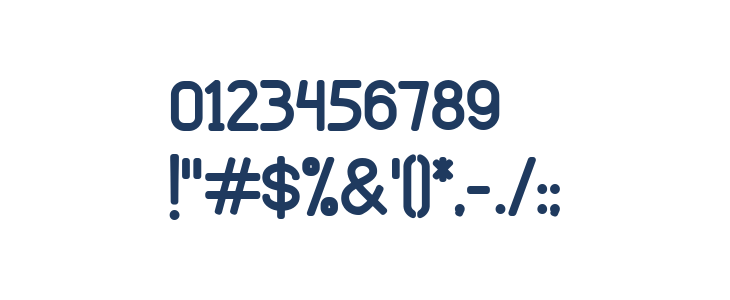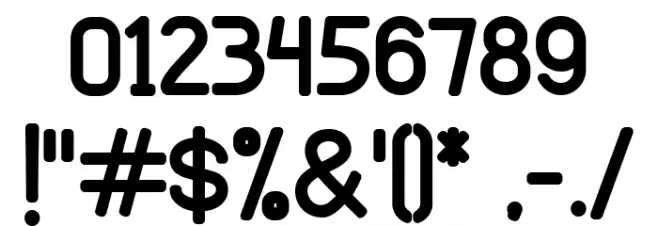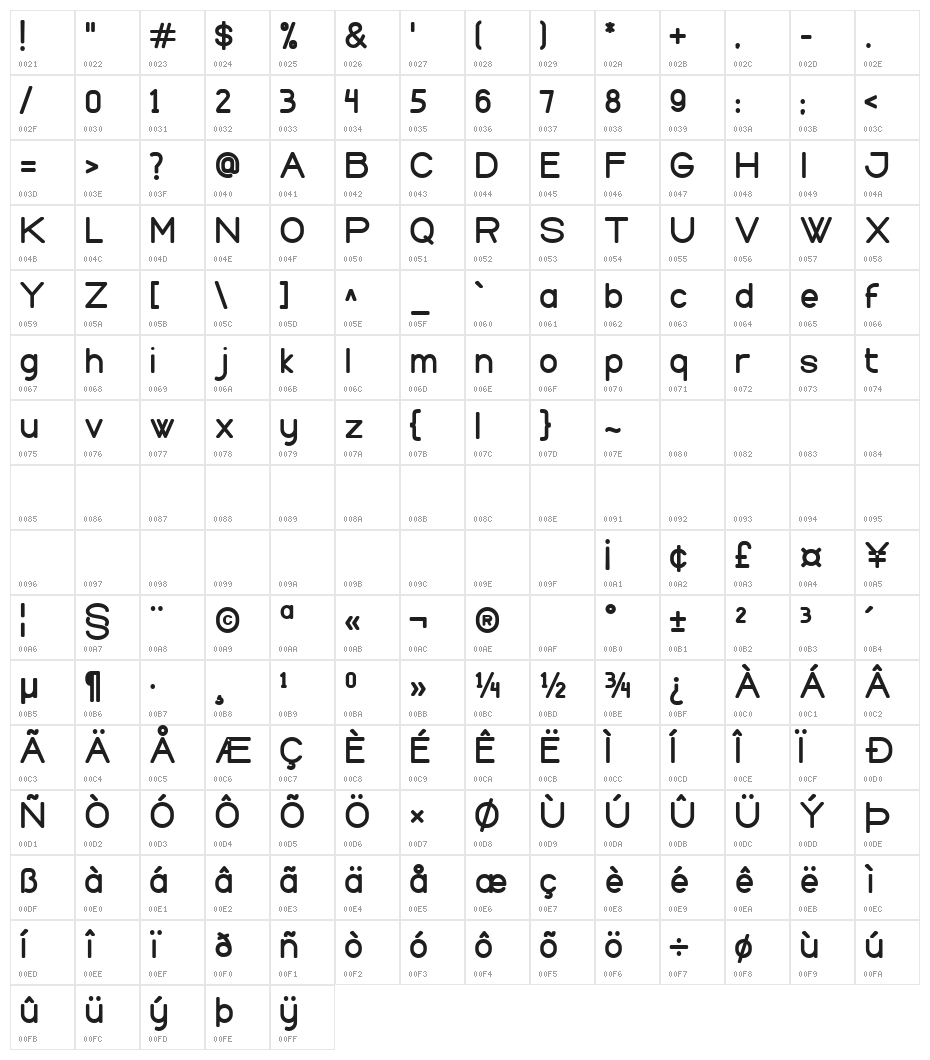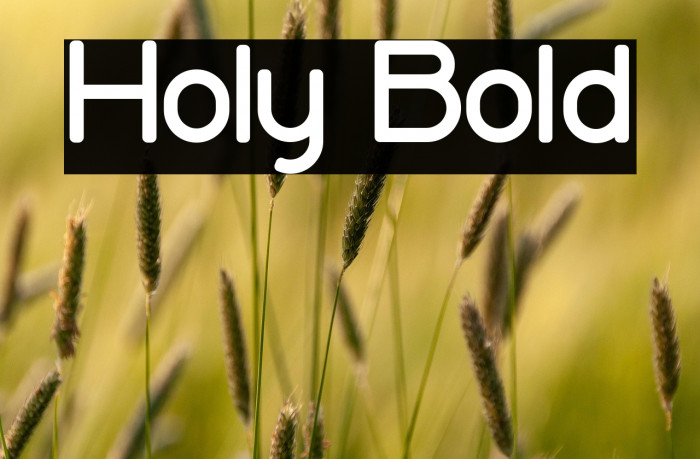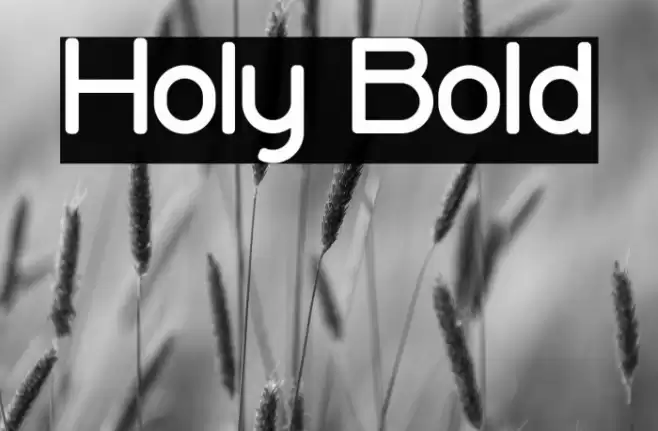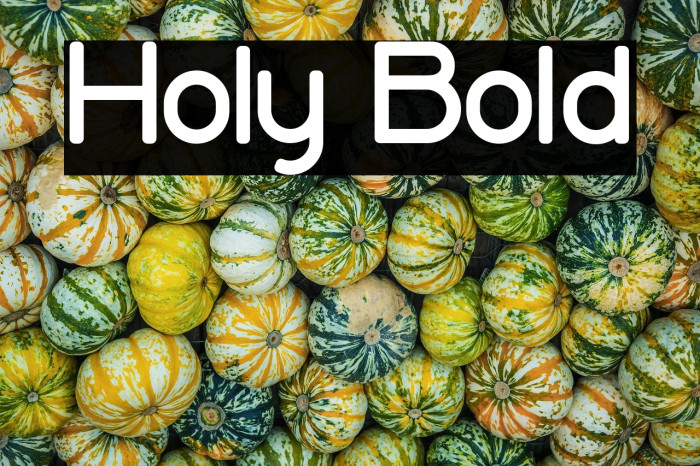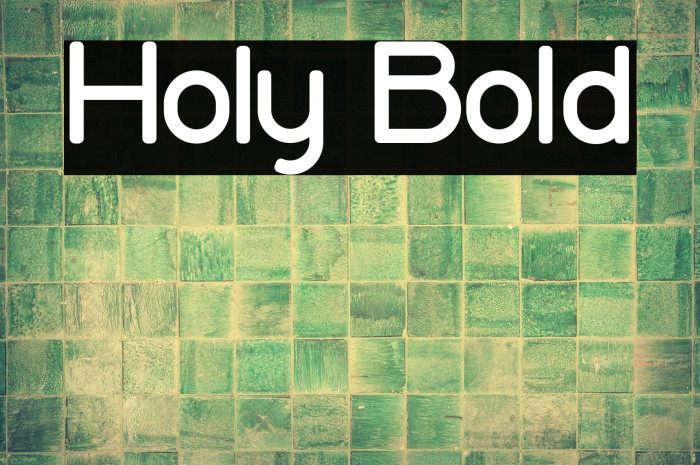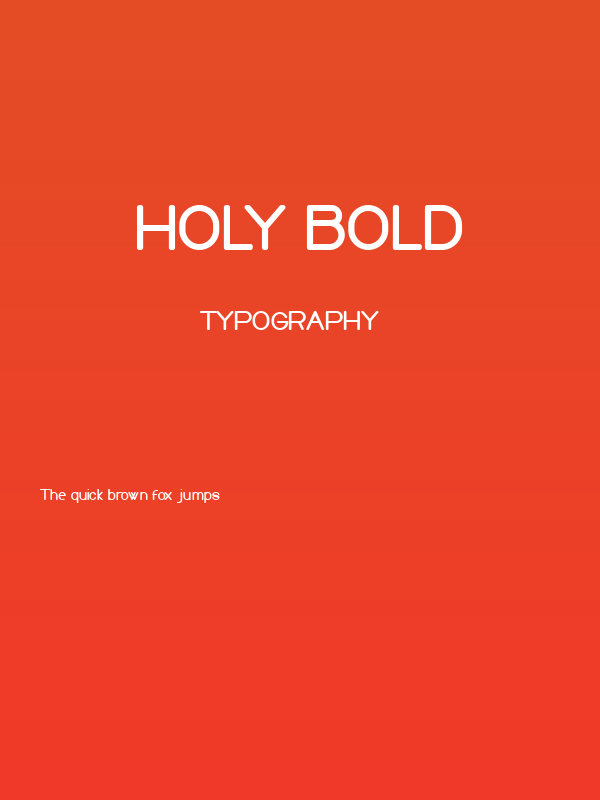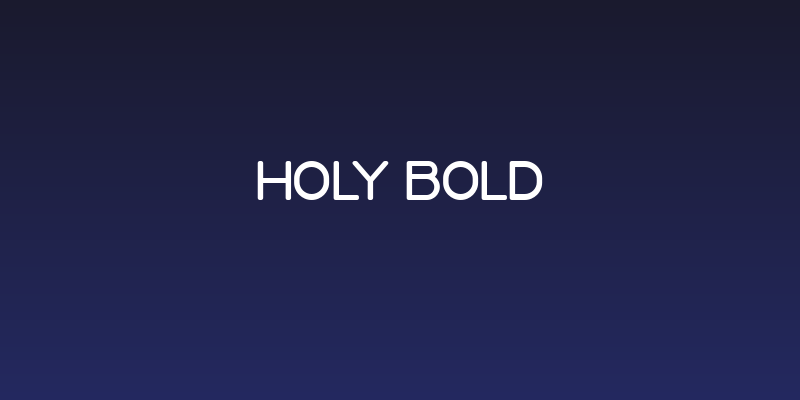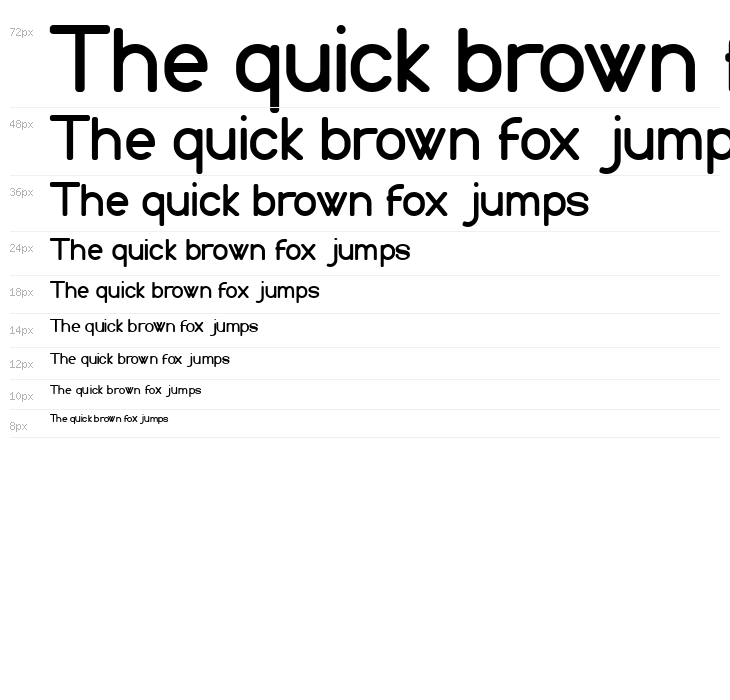
Holy Bold Font
Holy Bold Description
This font features a bold, rounded sans-serif style with a modern and clean aesthetic. The characters are uniform in width, providing a balanced and harmonious appearance. The rounded edges give it a friendly and approachable feel, making it suitable for a variety of design applications. The uppercase and lowercase letters are consistent in style, with a slight geometric influence that adds to its contemporary look. The numerals and special characters maintain the same boldness and rounded characteristics, ensuring a cohesive visual identity across all text elements.
| Proposed Projects | Ideal for branding, advertising, packaging, and digital media projects that require a modern and approachable look. |